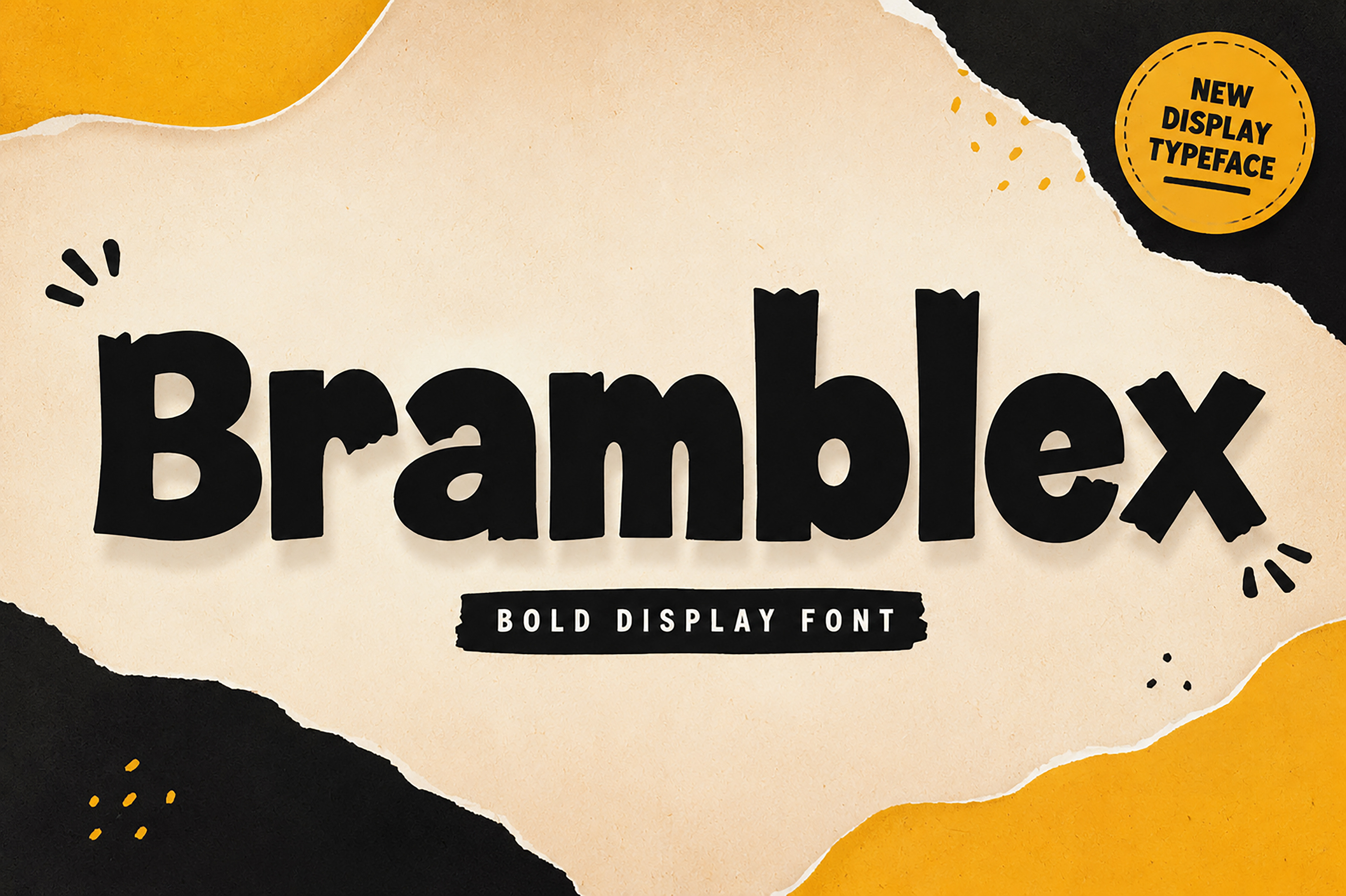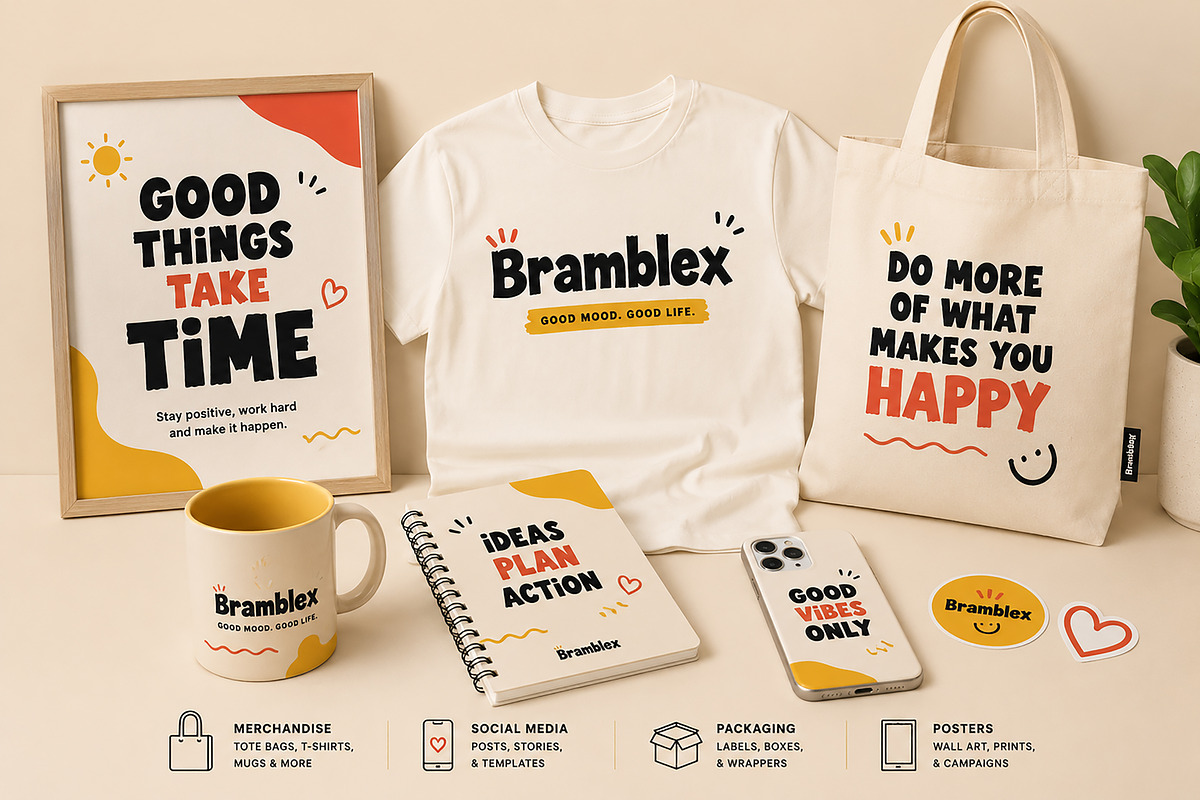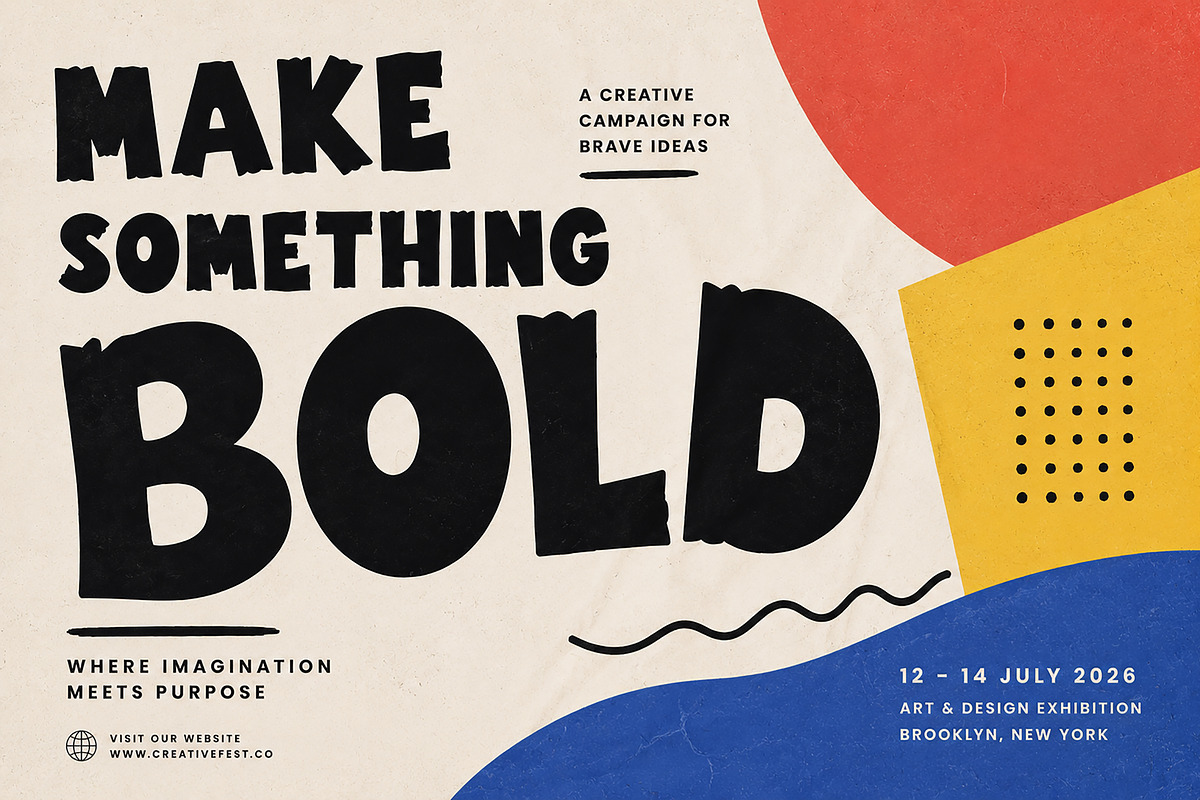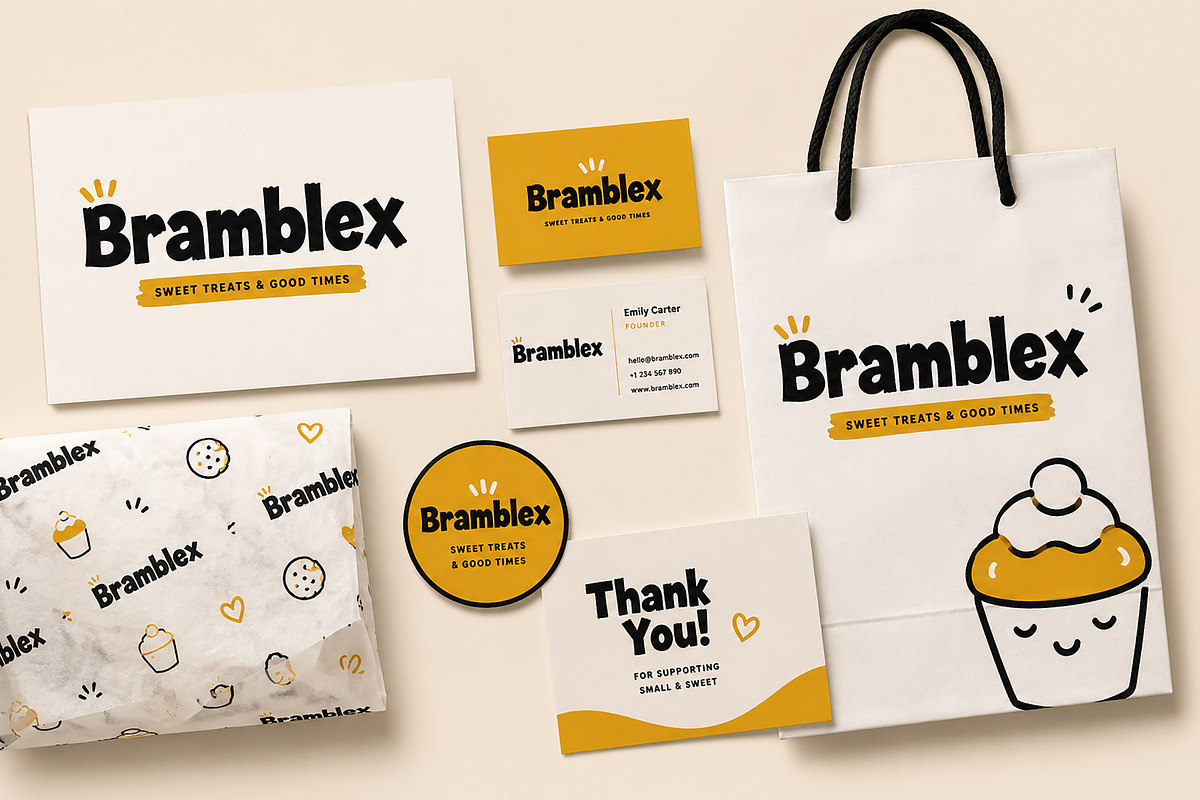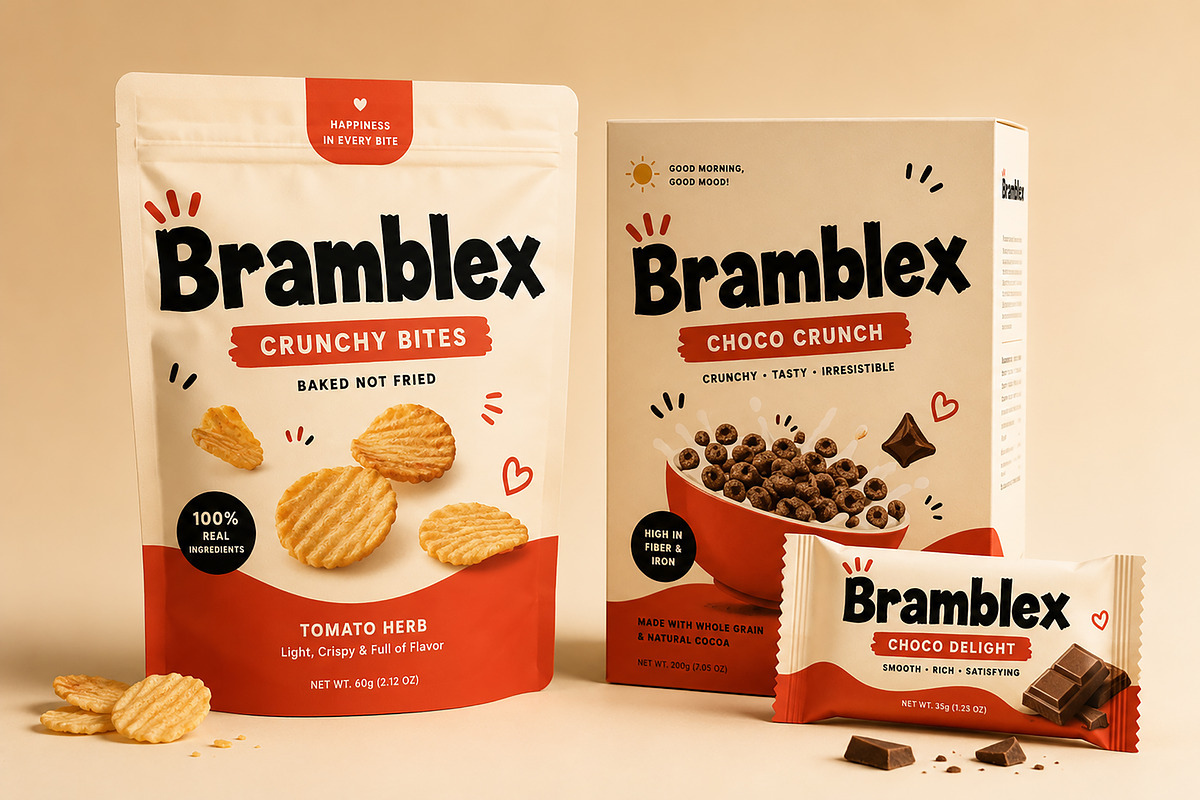
Bramblex – Bold Playful Display Font
Meet Bramblex, a bold and playful display font designed to make every headline stand out. With its chunky letterforms, handcrafted edges, and cheerful personality, Bramblex brings energy and creativity to any design. Whether you're creating eye-catching branding, product packaging, posters, social media graphics, or merchandise, this font adds a fun and memorable touch.
Inspired by modern handcrafted typography, Bramblex balances boldness with a friendly character, making it perfect for designers who want their work to feel unique, expressive, and full of personality.
Its strong silhouette ensures excellent readability at large sizes while giving every word a distinctive handcrafted appearance.
Logos & Branding
Posters & Flyers
YouTube Thumbnails
Children's Products
Food & Beverage Branding
Candy & Dessert Packaging
T-Shirt Designs
Stickers
Magazine Covers
Event Promotions
Creative Advertising
Greeting Cards
Quotes
Website Headlines